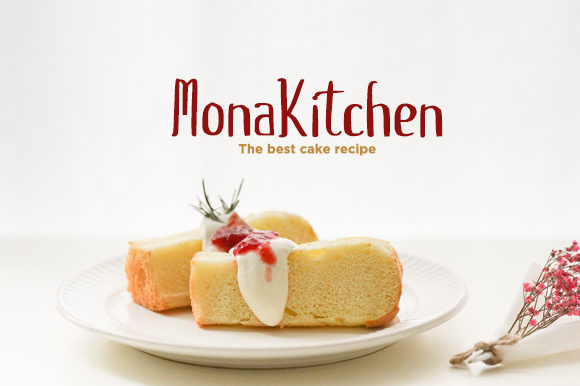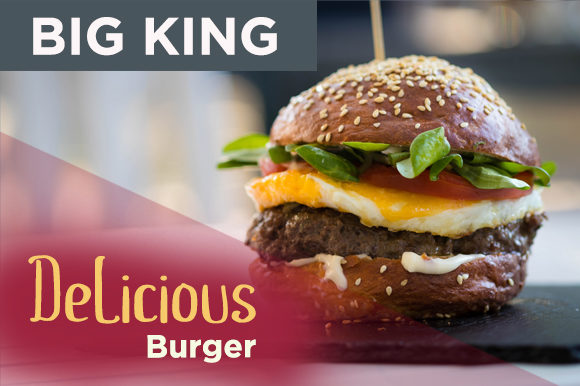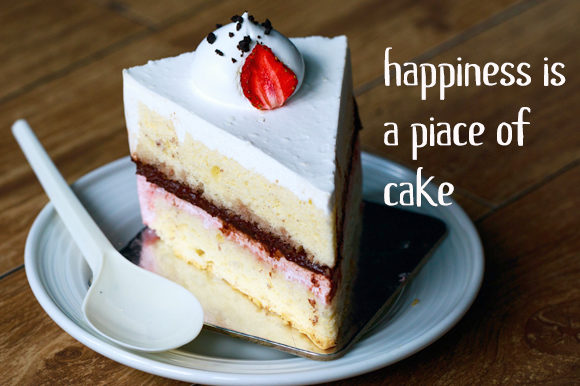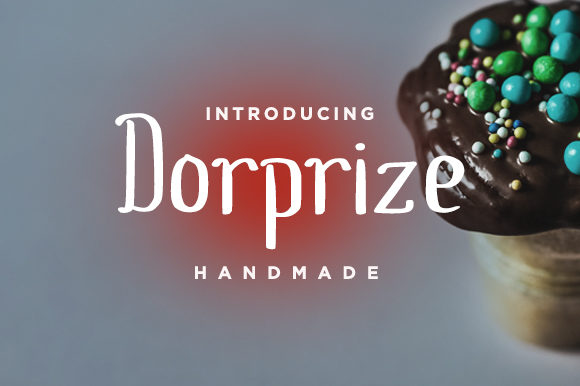
Dorprize Font: Elevate Your Designs with a Simple yet Elegant Handwritten Style
Are you a designer or crafter looking for a font that can add a touch of elegance and sophistication to your projects? Look no further than the Dorprize font. This simple and neat handwritten font is designed to enhance the beauty of your designs, making it perfect for a wide range of applications.
What is Dorprize Font?
Dorprize is a carefully crafted handwritten font that strikes the perfect balance between simplicity and elegance. It is not too thin and not too thick, making it a versatile choice for various design projects. The font’s balanced and varied strokes add a touch of sophistication, making it ideal for designers and crafters who want to create beautiful and professional-looking designs.
Key Features of Dorprize Font
- Simple and Neat: Dorprize font is designed to be simple and neat, making it easy to read and use in a variety of design projects.
- Balanced and Varied: The font’s balanced and varied strokes add a touch of elegance and sophistication, making it perfect for designs that require a high level of professionalism.
- Not too Thin and Not too Thick: The font’s moderate thickness makes it versatile and suitable for a wide range of design applications.
- Handwritten Style: Dorprize font has a beautiful handwritten style that adds a personal touch to your designs.
Uses of Dorprize Font
Dorprize font is a versatile font that can be used in a variety of design projects, including:
- Branding and Logo Design: The font’s elegant and sophisticated style makes it perfect for branding and logo design projects.
- Digital Marketing: Dorprize font can be used in digital marketing materials such as social media graphics, email marketing campaigns, and website designs.
- Print Design: The font is suitable for print design projects such as brochures, flyers, and business cards.
- Crafting and DIY Projects: Dorprize font can be used in crafting and DIY projects such as handmade cards, gift tags, and scrapbooking.
Benefits of Using Dorprize Font
Using Dorprize font in your design projects offers several benefits, including:
- Elegance and Sophistication: The font adds a touch of elegance and sophistication to your designs, making them stand out from the crowd.
- Versatility: Dorprize font is versatile and can be used in a wide range of design projects.
- Easy to Read: The font is easy to read, making it perfect for designs that require a high level of legibility.
- Unique and Creative: Dorprize font has a unique and creative style that can add a personal touch to your designs.
Dorprize font is a simple and elegant handwritten font that can elevate your designs to the next level. Its balanced and varied strokes, moderate thickness, and beautiful handwritten style make it perfect for a wide range of design projects. Whether you are a designer or crafter, Dorprize font is a great choice for adding a touch of elegance and sophistication to your designs.